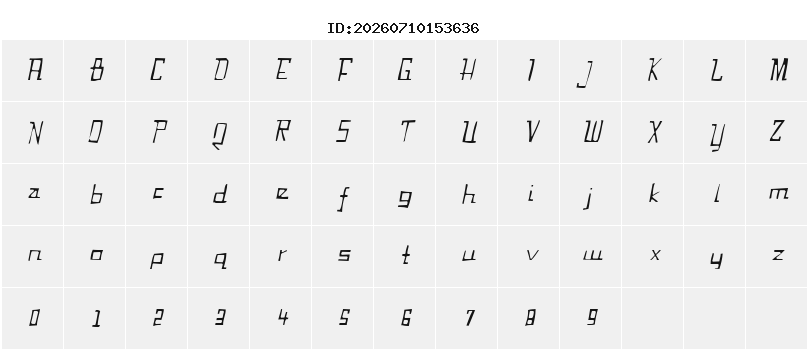
• Font Name: Fabian Gaunt
• Font ID: RayLarabie: Fabian Gaunt Italic: 2000
• Full Font Name: Fabian Gaunt Italic
• PostScript Name: FabianGaunt-Italic
• Designer: Ray Larabie Fonts
About Fabian Gaunt.ttf
Fabian Gaunt.ttf is a modern, elegant sans-serif font designed for ultimate readability and visual harmony. Perfect for branding, headlines, web design, and print materials.